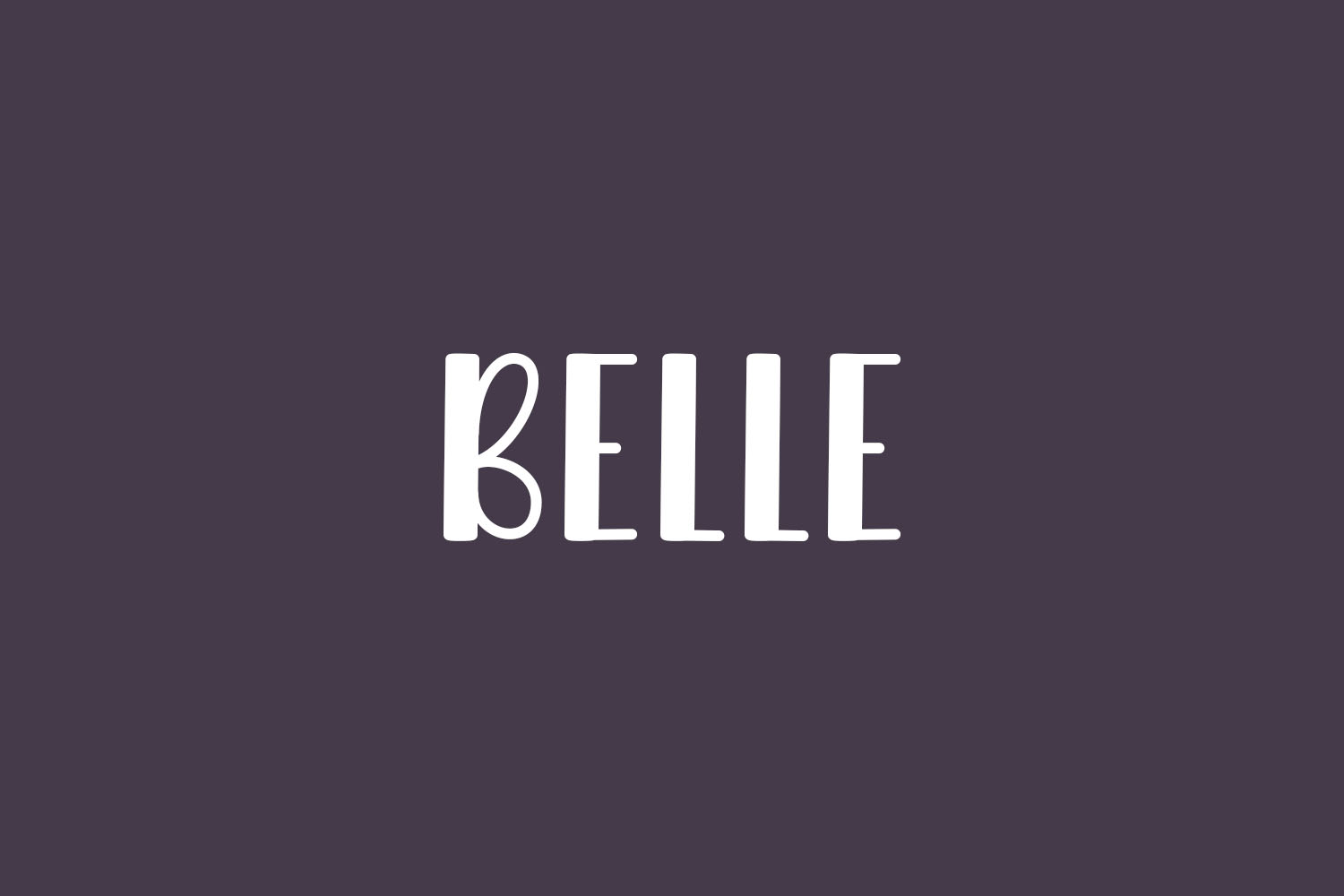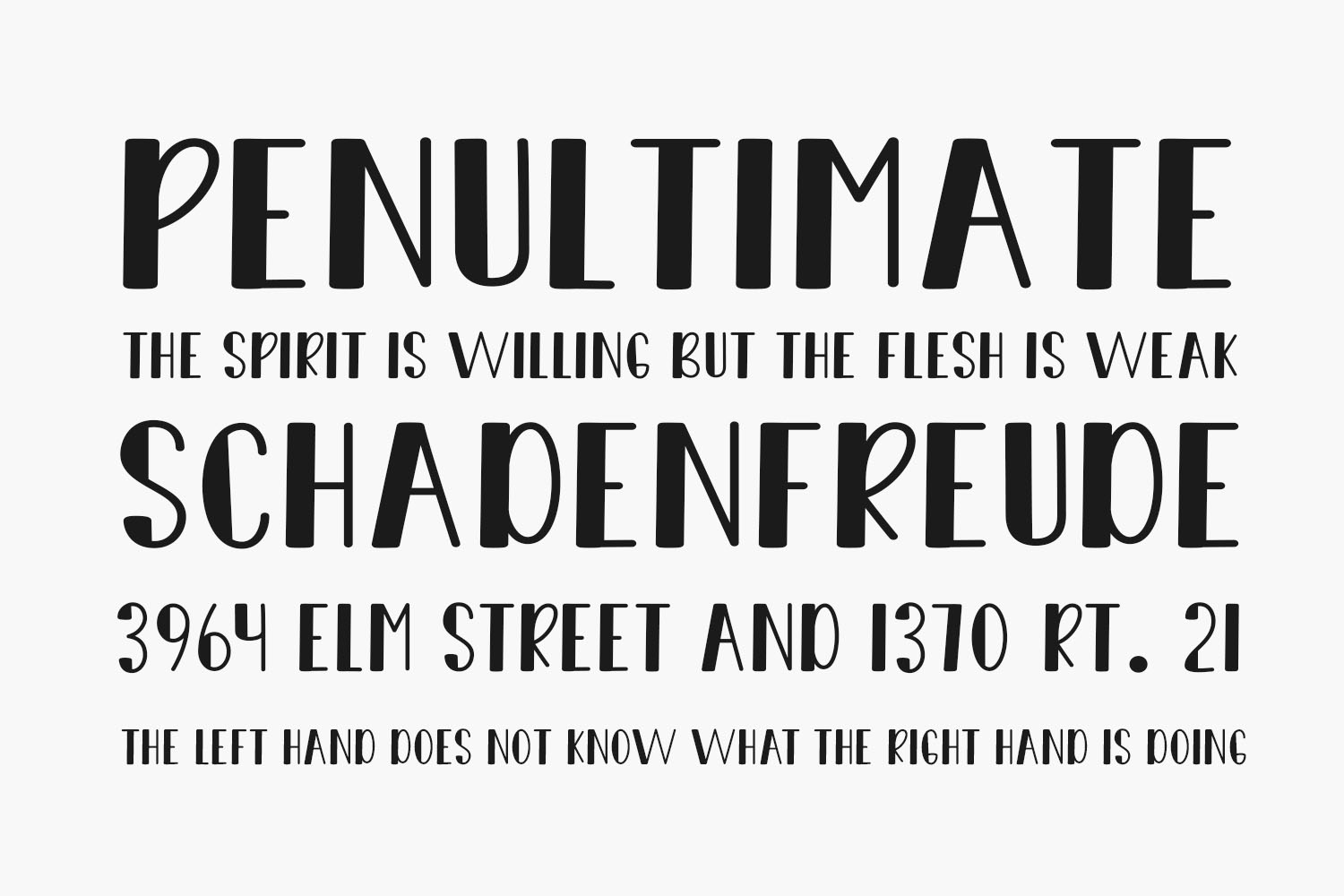
Belle Free Font is an elegant and dainty duo font (handwritten and sans serif), that features sweet and delicate swashes. This original look will appeal to a wide range of crafty ideas, from letterheads and titles to stationery. Belle Free Font was designed by Fillo Graphic and is free for personal use only. Please purchase the full version for commercial use.